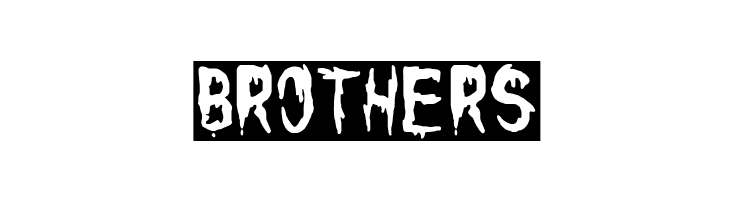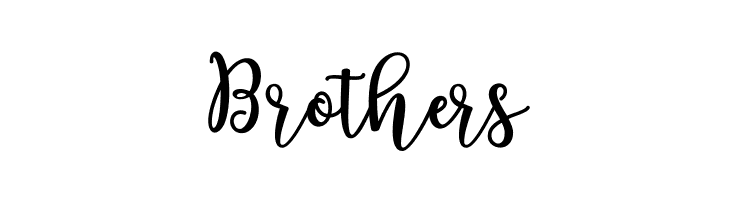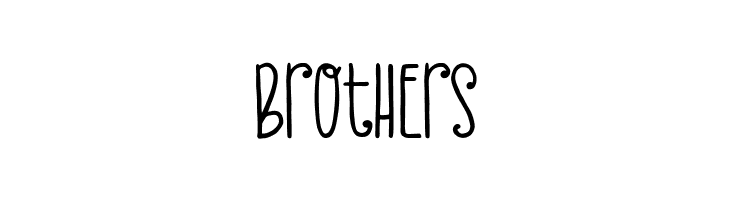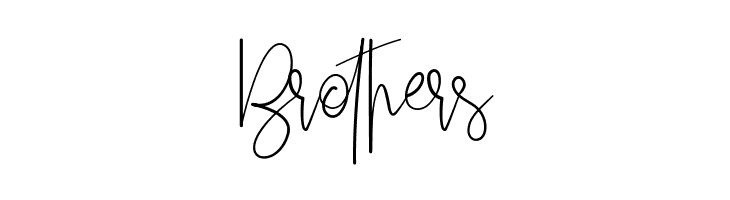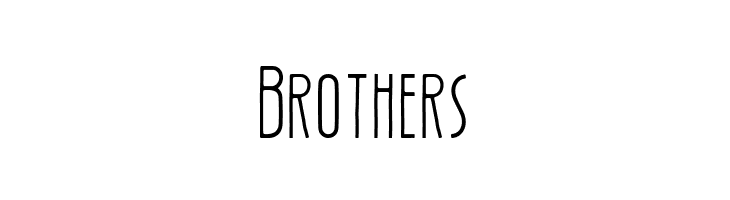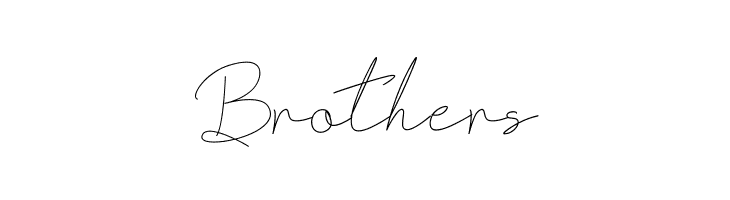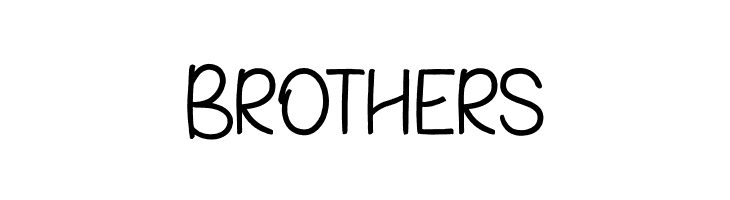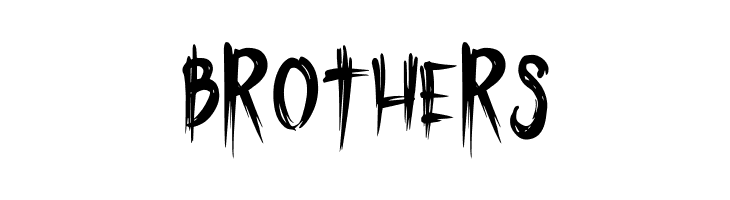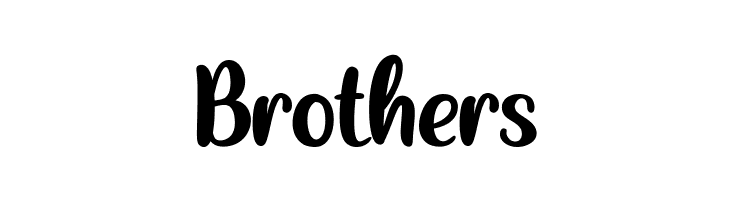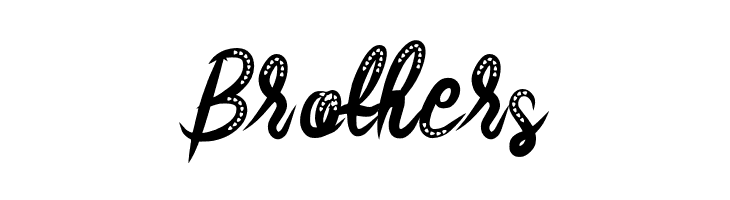
A playful, hand-drawn font with elongated, narrow characters.
A playful, handwritten-style font with consistent stroke thickness and rounded edges.
A flowing, cursive font with elegant, elongated strokes and a sophisticated appearance.
A bold, playful script font with dynamic curves and lively character.
A modern monospaced font with medium contrast and rounded edges.
A playful, handwritten script font with smooth curves and dynamic strokes.
A lively, flowing script font with elegant, connected letterforms and bold strokes.
A dripping, horror-themed font with a liquid-like appearance.
A bold, playful script font with smooth curves and thick strokes.
A bold, energetic script font with a dynamic, handwritten style.
A bold, playful font with a hand-drawn, energetic style.
An elegant script font with intricate swirls and decorative flourishes.
A bold, decorative font with a unique horizontal striped pattern.
A bold, varsity-style font with a textured, dotted interior and strong outlines.
A bold, dynamic font with a playful, striped design.
A playful, hand-drawn font with tall, narrow characters and a whimsical style.
A playful, handwritten font with tall, narrow letters and whimsical curves.
A dramatic, edgy font with sharp, jagged edges and a distressed look.
A bold, jagged font with a horror-inspired, hand-drawn style.
A playful, handwritten font with a casual and dynamic style.
A playful script font with decorative polka dot accents and dynamic strokes.
A playful, bold font with whimsical curves and decorative dots.
A playful, whimsical font with circular dot embellishments and a smooth, flowing style.
A bold, high-contrast display font with sharp serifs and tight spacing.
A bold, geometric font with a modern and uniform appearance.
A bold, textured font with a playful, distressed style.
A bold, cursive script font with a lively and energetic style.
A bold, expressive script font with a flowing, handwritten style.
A whimsical, decorative font with flowing, wavy lines.
Decorative script font with elegant swashes.
A playful, bold font with a chunky, irregular style and a whimsical, hand-drawn appearance.
A bold, playful handwritten font with thick strokes and a casual style.
A playful, bold font with thick, rounded characters and a whimsical style.
A playful, handwritten font with smooth curves and consistent weight.
A playful, bold handwritten font with rounded, consistent strokes.